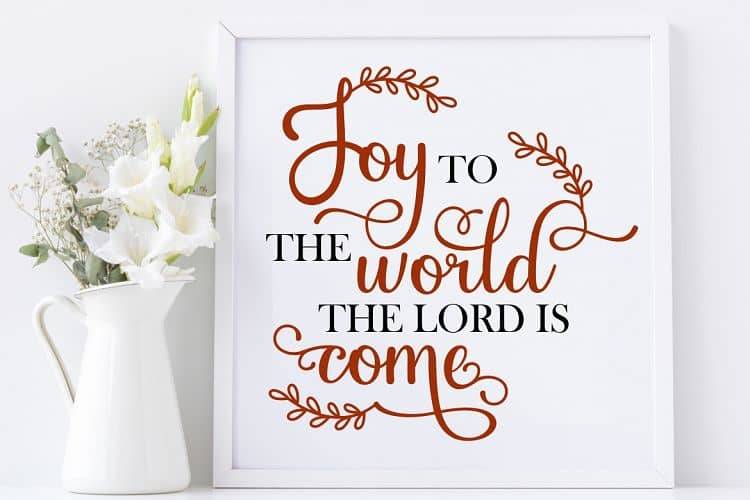
Feeling Blessed Script Font
Feeling Blessed is a script and modern font with a distinct style that gives off a welcoming vibe. The typeface is fully compatible with Windows, Apple, Mac OS X, and Linux and may be readily converted into web fonts. It features open-type qualities and is primarily used to create unique designs. The typeface is available to everyone and covers a wide range of languages. It was created by HansCo in the year 2020 and is widely used for all the correct reasons. Scriptina Font is the finest replacement for this typeface.
Because of its clear and distinct characters, every designer’s first pick for modern websites is this modern Script and Calligraphy font. This typeface can be used in websites, graphics, posters, banners, display texts, headings, and titles, among other things. Furthermore, every publisher prioritizes this font. This typeface has been used in several major magazines’ magazine texts, subheadings, and headings. It exudes elegance and quality, making it a full package. Many designers have used this font in the past and have been pleased with the results. This typeface pops out in your design and on your website, and people will compliment you on it.
Feeling Blessed Script Font View
| Name | Feeling Blessed Script Font |
| Style | Script, Calligraphy |
| Designer | HansCo |